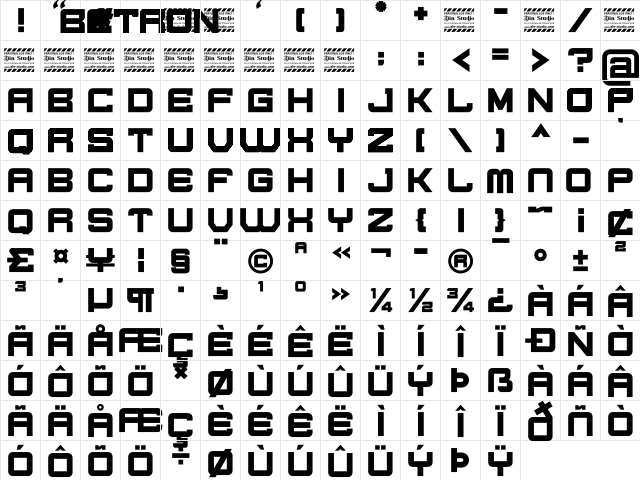
Betron Personal Use Regular
| Designer | Donis Miftahudin |
Design Context for Betron Personal Use Typeface
Betron Personal Use is a composed and adaptable typeface that performs quietly and consistently across a wide range of design contexts.